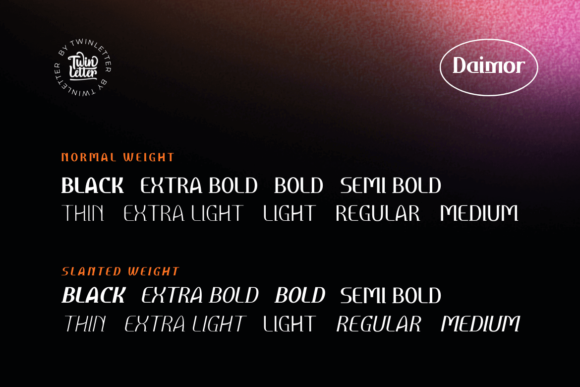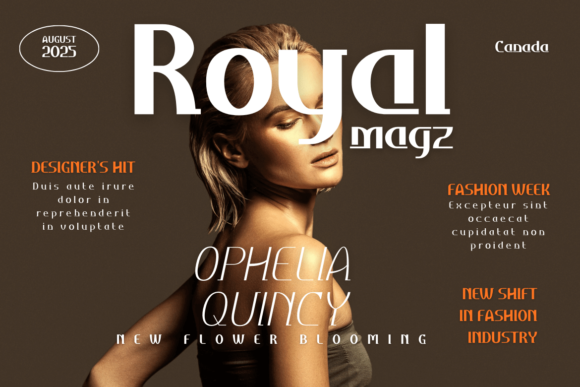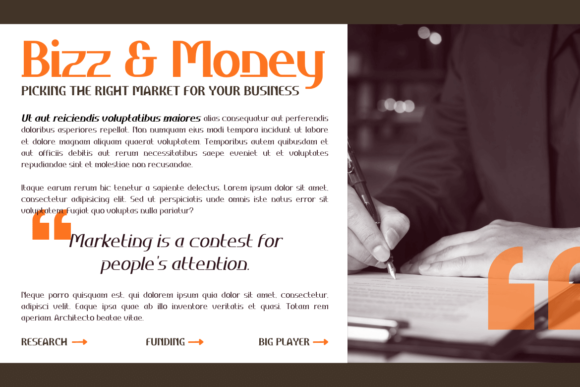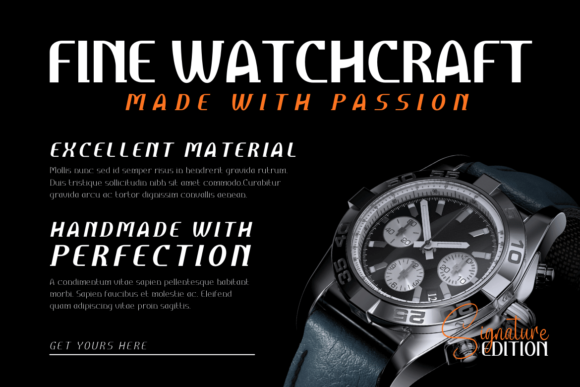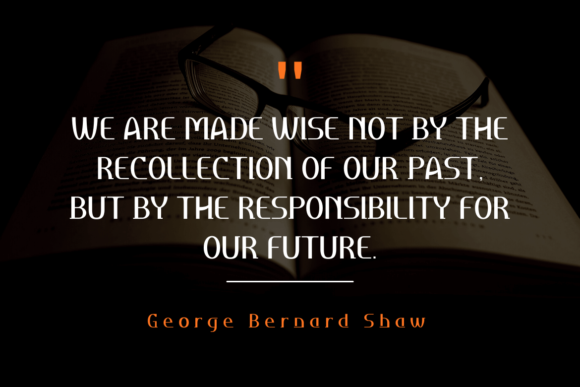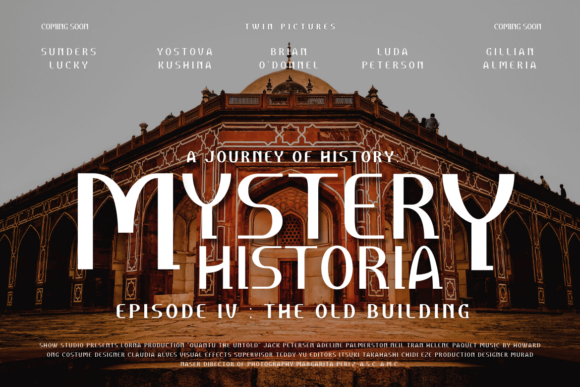
Introducing Daimor Font: Elevate Your Designs with Elegance and Modernity
In the world of design, fonts play a crucial role in conveying the tone and aesthetic of a project. For those seeking a modern and elegant touch, the Daimor Font is an excellent choice. This stunning sans serif font has been crafted to bring a minimalist and clean vibe to a wide range of designs, from book covers and magazines to social media posts and invitations.
What is Daimor Font?
Daimor is a thoughtfully designed sans serif font that exudes sophistication and elegance. Its clean lines and minimalist approach make it an ideal choice for designers looking to add a touch of modernity to their work. The font’s versatility allows it to be used across various platforms and design materials, ensuring consistency and professionalism.
Key Features of Daimor Font
- Elegant and Modern Design: Daimor’s sleek and contemporary design makes it perfect for projects that require a fresh and sophisticated look.
- Minimalist and Clean Vibe: The font’s minimalist approach ensures that your designs remain uncluttered and focused, allowing your content to take center stage.
- Versatile and Adaptable: Daimor can be used for a wide range of design applications, including book covers, magazines, social media posts, invitations, and more.
- Easy to Read: The font’s clear and legible design ensures that your message is conveyed effectively, making it perfect for both digital and print materials.
Design Applications for Daimor Font
Daimor’s versatility makes it an excellent choice for various design projects. Here are some ideas to get you started:
- Book Covers: Add a touch of sophistication to your book covers with Daimor’s elegant and modern design.
- Magazines: Use Daimor to create visually appealing magazine layouts that exude professionalism and style.
- Social Media Posts: Elevate your social media presence with Daimor’s clean and minimalist design, perfect for creating engaging and shareable content.
- Invitations: Make a lasting impression with Daimor’s elegant and sophisticated design, ideal for wedding invitations, event invitations, and more.
Why Choose Daimor Font?
With so many fonts available, why choose Daimor? Here are a few reasons why Daimor stands out:
- Unique and Distinctive: Daimor’s modern design sets it apart from other fonts, ensuring that your designs stand out from the crowd.
- Highly Legible: The font’s clear and clean design ensures that your message is conveyed effectively, making it perfect for both digital and print materials.
- Easy to Pair: Daimor’s versatility makes it easy to pair with other fonts, allowing you to create visually appealing and harmonious design combinations.
In conclusion, the Daimor Font is an excellent choice for designers and crafters seeking to add a touch of elegance and modernity to their work. Its minimalist and clean vibe makes it perfect for a wide range of design applications, from book covers and magazines to social media posts and invitations. With its unique and distinctive design, high legibility, and ease of pairing, Daimor is sure to become a staple in your font collection.